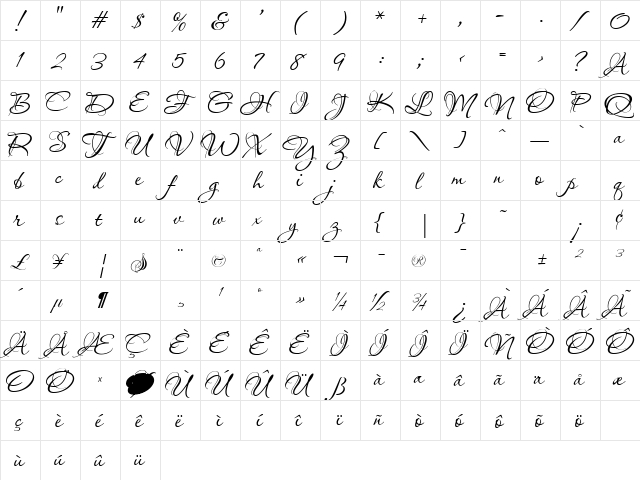
Aquarelle Regular
| Foundry | Gophmann Alexandra Leopoldovna work |
| Designer | Gophmann A.L |
Design Context for Aquarelle Typeface
Aquarelle is a composed and adaptable typeface that performs quietly and consistently across a wide range of design contexts.